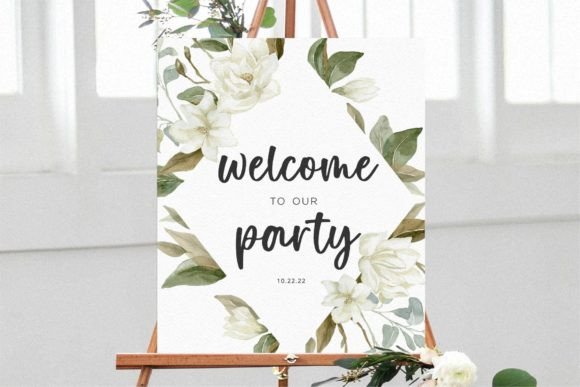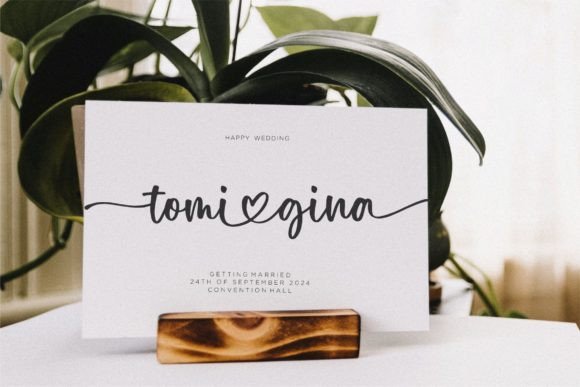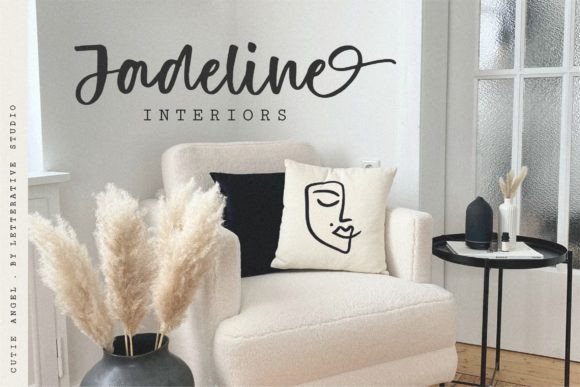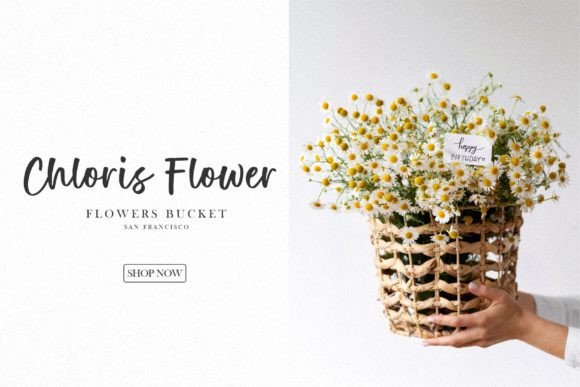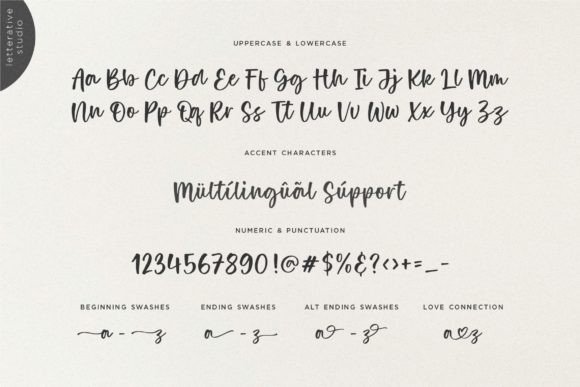
Unleashing the Sweet Charm of Your Designs
Have you ever been stuck in the midst of a creative project, desperately searching for that perfect finishing touch to elevate your design from ordinary to extraordinary? I know I have! For me, it’s often the little things – like the perfect font – that make all the difference. And speaking of perfect fonts, I’m thrilled to introduce you to the enchanting Cutie Angel Font – a romantic and sweet calligraphy typeface that’s sure to add a luxury spark to your designs.
With its beautifully crafted characters that dance along the baseline, the Cutie Angel Font is a true gem for designers. Not only is it PUA encoded, making it effortless to access its amazing glyphs and ligatures, but its versatility ensures it’s the perfect addition to any project, from wedding invitations to brand logos.
Cutie Angel Font Key Features
- Unique Characteristics: The Cutie Angel Font features a unique, whimsical design with intricate details and a soft, childlike feel, making it ideal for use in children’s books, educational materials, and other projects that require a playful tone.
Designer Review: Cutie Angel Font
Overall, I think the Cutie Angel Font has some delightful qualities, but it also has some limitations. Let’s dive in and explore what works well and what doesn’t.
- Adorable and playful feel: The font is perfect for adding a touch of whimsy to your designs. It’s great for creating a lighthearted and approachable vibe.
- Wide range of characters: The font includes a wide range of characters, including international characters, making it versatile for use in various languages and designs.
- High-quality typography: The font is well-designed and has a high level of polish, making it a great choice for designers who want a professional-looking font.
- Not suitable for serious or formal designs: While the font is perfect for playful designs, it may not be the best choice for more serious or formal projects.
- Limited font sizes: The font may not be as readable at larger font sizes, which could limit its use in certain design applications.
The Cutie Angel Font is a delightful addition to any designer’s toolkit. While it has some limitations, its playful and high-quality feel makes it a great choice for the right projects. If you’re looking for a font to add a touch of whimsy to your designs, this might be the perfect choice.
Practical Application Guide for Cutie Angel Font
For best results, use Cutie Angel Font in designs that require a playful, whimsical touch, such as:
– Children’s books and educational materials
– Party invitations and decorations
– Web headers and footers
Remember to adjust the font size and style to suit your design needs.
Alternatives to Cutie Angel Font
Great Vibes is a beautiful, elegant script font that is perfect for adding a touch of sophistication to your designs. It’s ideal for use in wedding invitations, greeting cards, and other formal occasions. Compared to Cutie Angel Font, Great Vibes has a more refined and delicate look, making it a great choice for designs that require a bit more elegance.
Carolyna Pro is a modern, cursive font that is great for adding a playful touch to your designs. It’s perfect for use in social media graphics, advertisements, and other casual designs. Compared to Cutie Angel Font, Carolyna Pro has a more modern and edgy look, making it a great choice for designs that require a bit more attitude.
Q: Is the Cutie Angel Font compatible with non-English languages?
Yes, the Cutie Angel Font supports a wide range of languages, including English, Spanish, French, German, Italian, Portuguese, and many others. The font includes a comprehensive character set that covers most Latin-based languages, as well as some Cyrillic and Greek characters.